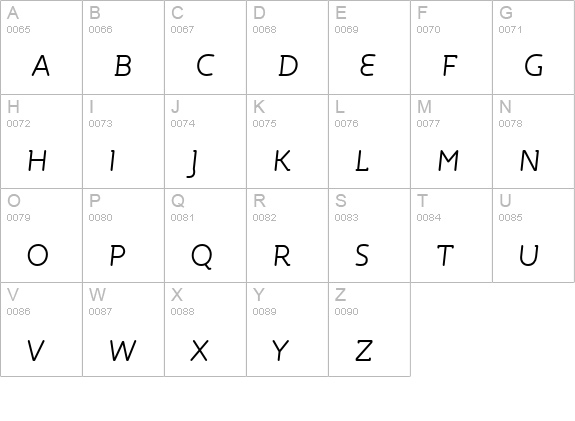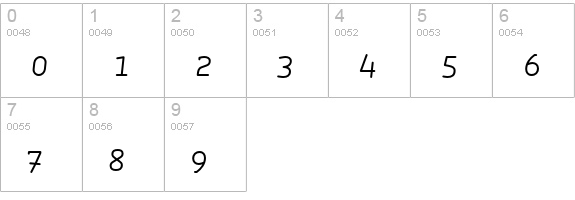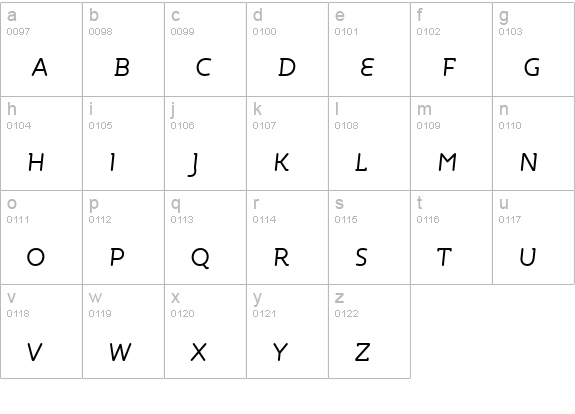
Roice-LightItalicSC Font Details
Roice-LightItalicSC is a refined and elegant font that exudes sophistication and style. Its delicate italicized strokes add a touch of grace to any design project, making it perfect for use in branding, editorial design, and more. The soft curves and subtle flourishes of Roice-LightItalicSC create a timeless and classic look that is sure to stand out. The best part? Roice-LightItalicSC is completely free to download at FontsMarket.com. With just a few clicks, you can add this beautiful font to your collection and start using it in your projects right away. Don't miss out on this opportunity to enhance your designs with the exquisite beauty of Roice-LightItalicSC. Download it now and elevate your work to the next level.